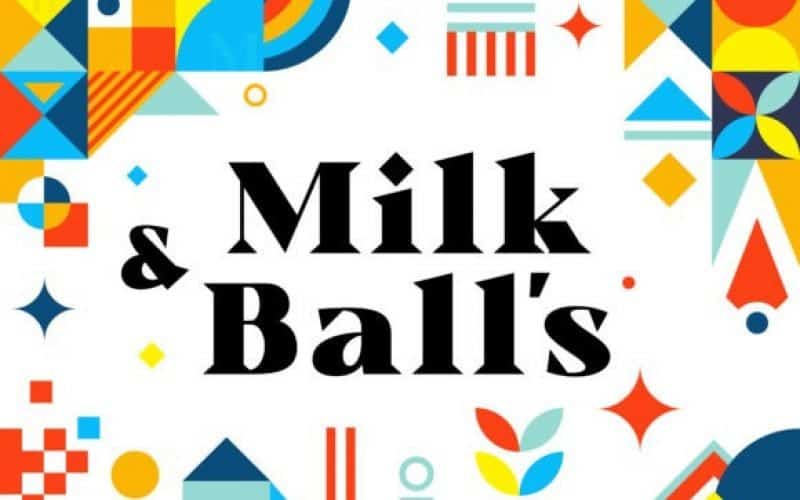
Milk and Balls Serif Font
Milk and Balls Serif Font is a chic & elegant display modern serif with beautiful contrast. This character that seems rigid and decisive is perfect for bold and formal design concepts. The unique shape of the letter makes the design made different from the others.
Milk and Balls Serif Font is very suitable for header text, body text, and the contents of paragraphs because there are 11 family fonts from Thin to Heavy, in addition there is also an italic version. So Milk and Balls are very complete and suitable to be a collection of typefaces that can be used at any time. Don’t worry about Multilingual, because Milk and Ball’s are supported by multilingual.